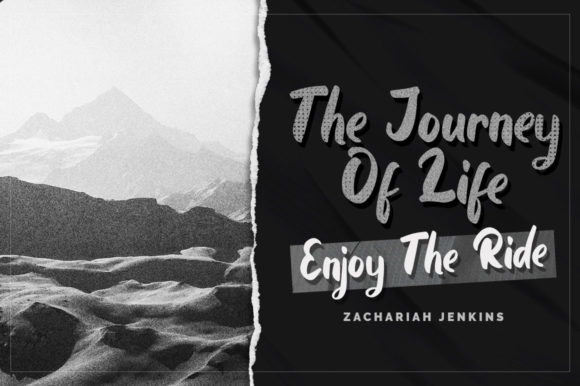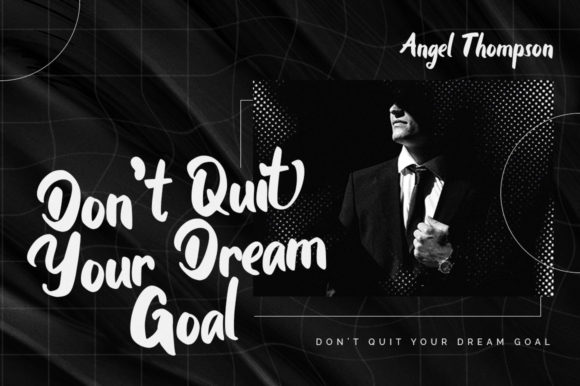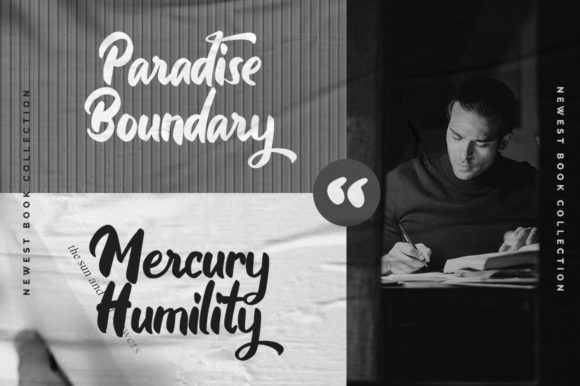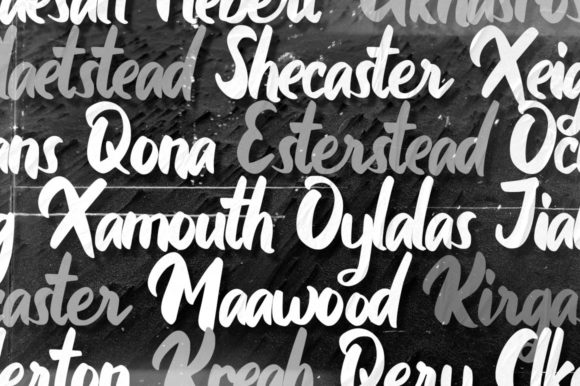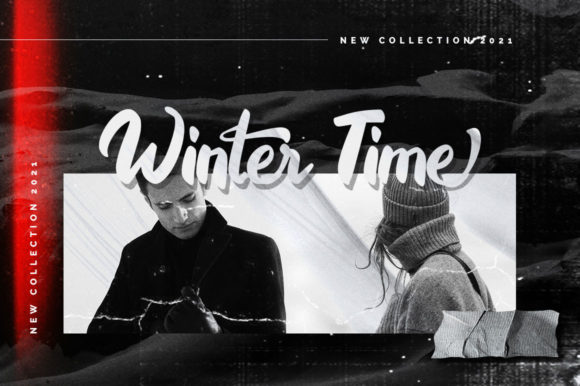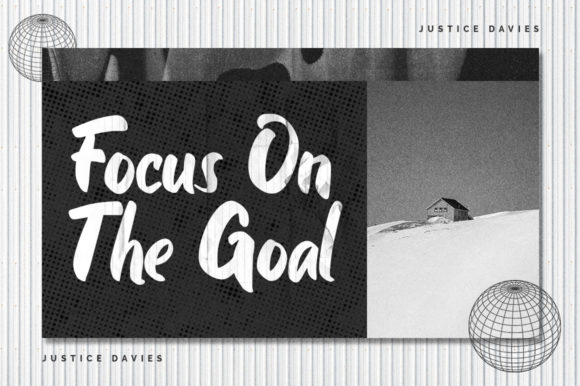
The Perfect Blend of Style and Nostalgia: Unveiling the Agusta Font
Have you ever stumbled upon an old, worn-out sign or a vintage advertisement that instantly sparks your creativity? For designers, it’s not uncommon to draw inspiration from the past and infuse it into their work. This time, we’re excited to share with you a font that will transport you back in time – the Agusta Font. This gorgeous and bold handwritten font is crafted to give your headlines and logotype projects a stylish touch.
The Agusta Font reads as strong, confident, and dynamic, making it an ideal choice for designers looking to add a nostalgic character to their designs. With its PUA encoding, you can access all of the glyphs and swashes with ease, giving you endless possibilities to experiment and create unique designs. Whether you’re working on a branding project or a creative campaign, the Agusta Font is sure to bring a touch of sophistication and elegance to your work.
Agusta Font Key Features
- Font Family: Agusta Font is a unique, elegant script font designed for various applications.
- Unique Characteristics: The font features flowing connections, subtle flourishes, and elegant letterforms, making it ideal for invitations, wedding stationery, and other formal events.
- Font Style: Agusta Font comes in Regular and Bold styles, allowing designers to create contrast and emphasis in their designs.
Agusta Font Review
Overall, I was impressed with the Agusta Font, but it also has some limitations that designers should be aware of.
- ✨ Elegant and sophisticated aesthetic that’s perfect for luxury brands or high-end products
- ✨ Highly customizable, allowing designers to adjust weights, styles, and spacing to fit their needs
- ✨ Excellent legibility, making it easy to read in both digital and print formats
- ✨ Supports a wide range of languages, making it a great choice for global brands
- ⚠️ Limited character set, which may be a problem for designers who need to support a wide range of characters
- ⚠️ Not ideal for body text, as it can feel a bit too ornate for long blocks of text
- ⚠️ May not be the best choice for digital interfaces, as it can be difficult to read at small font sizes
Overall, I think the Agusta Font is a great choice for designers who need a high-end, sophisticated font for their projects. While it has some limitations, its elegance and customizability make it a great option for the right use case.
Playfair Display is a luxurious and elegant serif font, perfect for creating a sense of sophistication and high-end branding. It’s ideal for use in magazine headlines, wedding invitations, and luxury product packaging. When to use: High-end branding, luxury products, and special occasions.
Playfair Display is similar to Agusta Font in its elegant and refined look, but it has a more traditional and classic feel. While Agusta Font has a more modern and sleek appearance, Playfair Display is better suited for more traditional and formal applications.
Great Vibes is a modern and stylish script font, perfect for creating a sense of playfulness and creativity. It’s ideal for use in advertising, social media, and entertainment branding. When to use: Creative projects, entertainment branding, and social media.